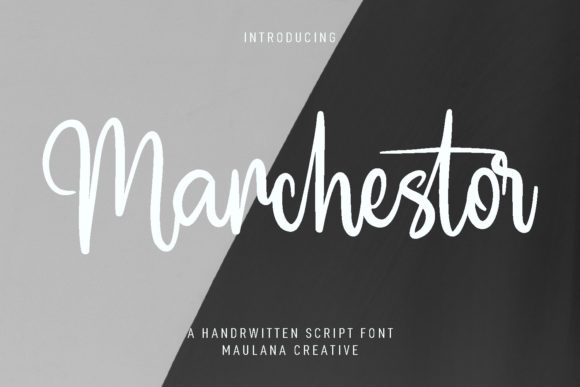
Unleash Your Creativity with Marchestor: A Script Font Symphony for Tattoo Designs
In the realm of tattoo artistry, where self-expression and individuality reign supreme, Marchestor emerges as a font symphony, a conductor of captivating scripts that will elevate your designs to breathtaking heights. Marchestor is not just a font; it's a gateway to a visual odyssey, an artistic expedition that transforms your imagination into tangible masterpieces.
Marchestor is a script font family that embodies the essence of fluidity and elegance. Its meticulously crafted regular strokes dance across the canvas, creating a harmonious rhythm that captivates the eye. Each character exudes personality, with playful flourishes and unexpected curves that add a touch of whimsy to your designs.
The Marchestor font family is a treasure trove of typographic artistry, offering a diverse collection of ligatures and alternates that empower you to unleash your creativity. Experiment with different combinations, blend and fuse characters, and watch as your designs take on a life of their own, telling stories that resonate with the soul.
Whether you're a seasoned tattoo artist or just starting your journey into this expressive realm, Marchestor is your trusted companion. Its adaptability knows no bounds, effortlessly complementing various tattoo styles. From intricate traditional designs to modern minimalist masterpieces, Marchestor seamlessly adapts, becoming an integral part of your artistic vision.
With Marchestor, you'll discover a font that breathes life into your creations. Its versatility extends beyond tattoos, making it a versatile choice for branding, logos, posters, and any project that demands a touch of handwritten elegance.
Beyond its aesthetic prowess, Marchestor possesses a remarkable functionality that makes it a joy to use. Its OpenType features allow for seamless integration with your design software, ensuring a smooth and intuitive workflow. Say goodbye to tedious font management and embrace the creative flow that Marchestor brings.
Don't settle for ordinary fonts that stifle your creativity. Embrace Marchestor, a font symphony that will ignite your imagination and redefine your artistic boundaries. As you embark on your creative journey with Marchestor, you'll discover a font that not only enhances your designs but also becomes an extension of your artistic soul.